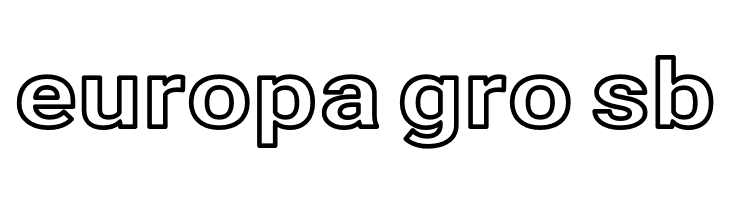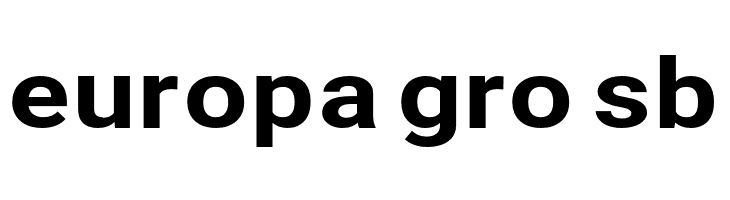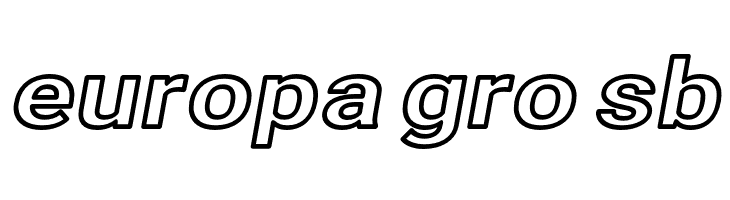
A playful, rounded font with smooth curves and consistent stroke width.
( Fonts by K_IN Studio )
A playful, bold handwritten font with rounded edges and a casual style.
A flowing, cursive font with elegant, connected strokes.
A playful, textured font with fuzzy, hand-drawn outlines.
A bold, graffiti-inspired font with dynamic and angular characters.
A playful, hand-drawn font with a sketch-like, textured outline.
A modern, geometric font with elongated, narrow letterforms and clean lines.
( Fonts by yong Somewhere Else - somewhere-else.info )
A bold, geometric stencil font with rounded edges and uniform weight.
( Gregoryfonts - www.geocities.com/soho/coffeehouse/9609/fonts/fonts.html )
A bold, decorative font with intricate, swirling designs and a gothic flair.
( Fonts by Din Studio )
Casual, artistic handwritten script font.
A bold, dynamic handwritten font with expressive strokes and a brush-like texture.
( Fonts by Ramandhani Nugraha )
A bold, brush-style font with dynamic, hand-painted strokes.
( Fonts by Danilo De Marco )
A modern sans-serif font with clean lines and uniform spacing.
( Fonts by Danilo De Marco )
A modern, sans-serif typeface with clean lines and balanced proportions.
( Fonts by Danilo De Marco )
A modern, bold sans-serif font with excellent readability and a friendly appearance.
( Fonts by Danilo De Marco )
A modern sans-serif font with clean lines and balanced proportions.
( Fonts by Danilo De Marco )
A modern, clean sans-serif font with uniform strokes and excellent readability.
( Fonts by Danilo De Marco )
A whimsical, decorative font with heart embellishments and flowing script.
A playful and whimsical font with bold, flowing letterforms and dynamic strokes.
A playful, outlined font with a whimsical, hand-drawn style.
A fluid and elegant handwritten script font with a personal touch.
A dynamic handwritten font with fluid, expressive strokes.